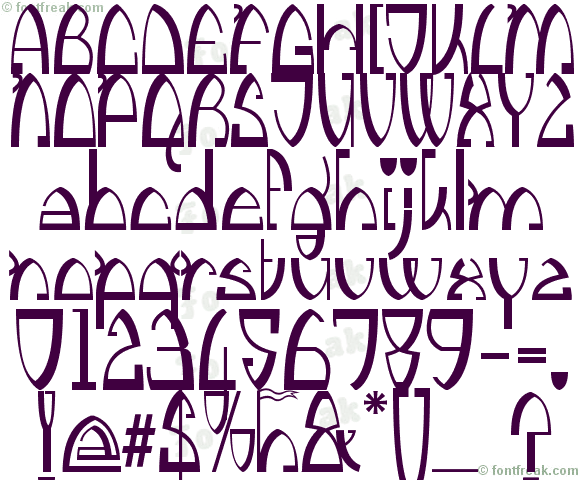
Kingthings Stirrup
Kingthings Stirrup, designed by Kevin King in 2008, is a unique display font that combines elements of both decorative and serif styles. This font captures attention with its striking visual characteristics, featuring a bold stroke weight and a playful contrast between thick and thin lines. The letterforms are characterized by whimsical curves and distinct flourishes, giving it an artistic flair that is both engaging and memorable. The spacing between the characters is thoughtfully designed, allowing for readability while maintaining an artistic touch.
This font is particularly well-suited for a variety of creative applications. It shines in wedding invitations where its elegant yet quirky style can enhance the romantic theme. Additionally, Kingthings Stirrup is perfect for movie posters, lending a dramatic and eye-catching appeal that draws in viewers. Restaurant menus can also benefit from this font, as it adds a unique character that complements culinary branding. Content creators looking to add a distinctive touch to their projects will find this font to be an excellent choice for social media graphics and promotional materials.
What sets the Kingthings Stirrup font apart is its ability to blend whimsy with sophistication, making it suitable for both casual and formal contexts. Its artistic design elements not only enhance visual appeal but also evoke a sense of personality and uniqueness. For those looking to elevate their design projects, the Kingthings Stirrup font free download is a fantastic resource.